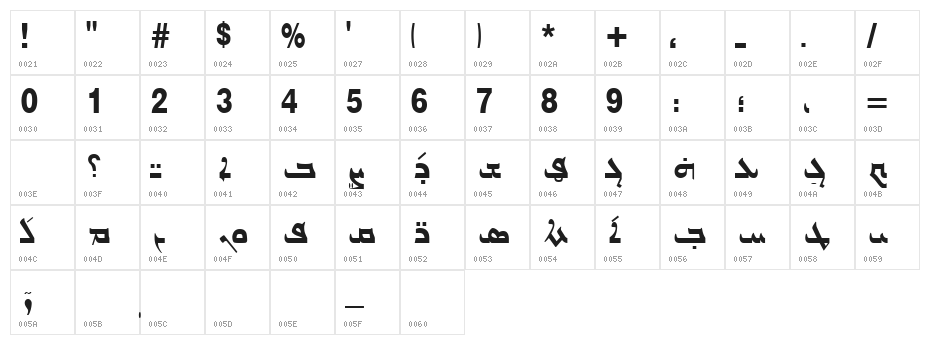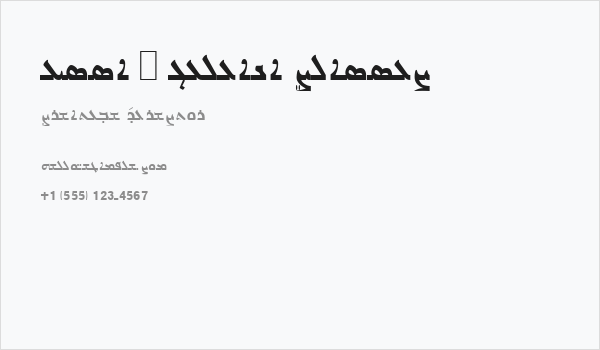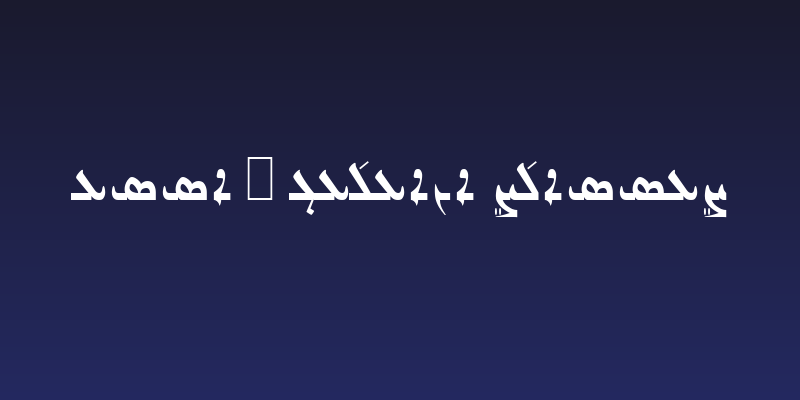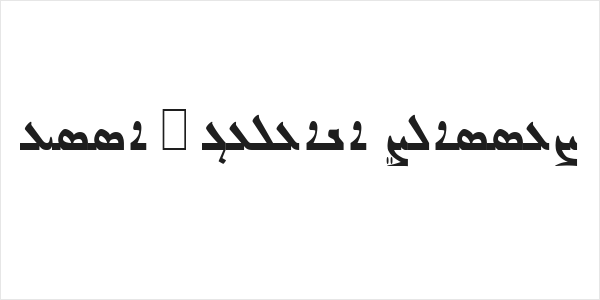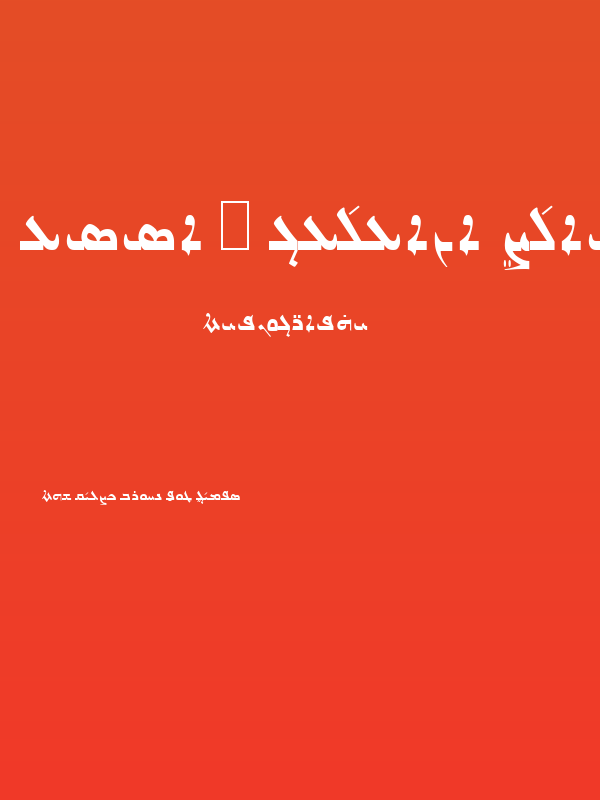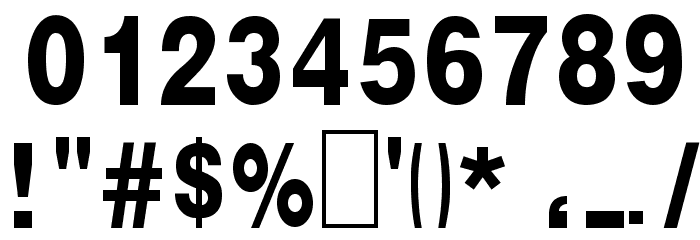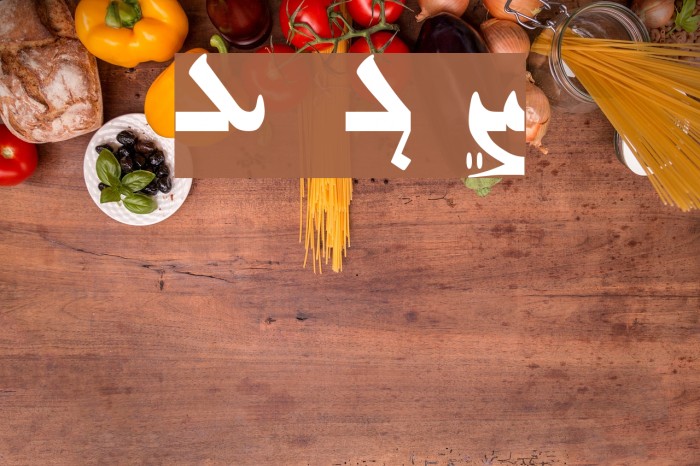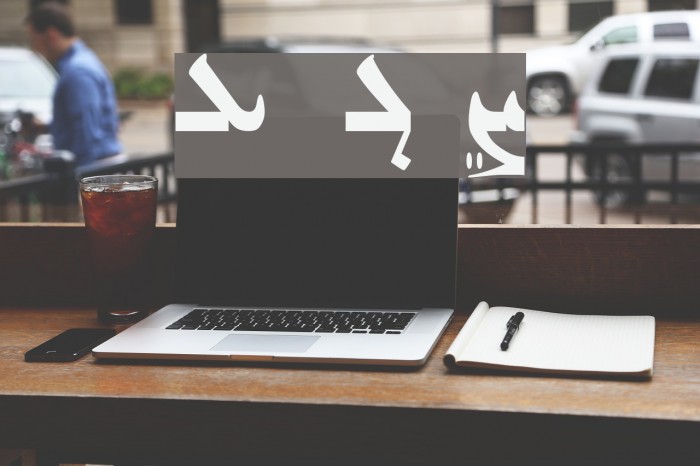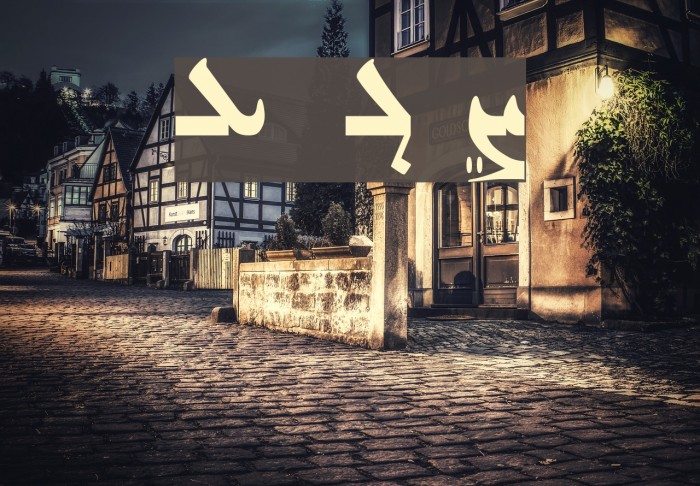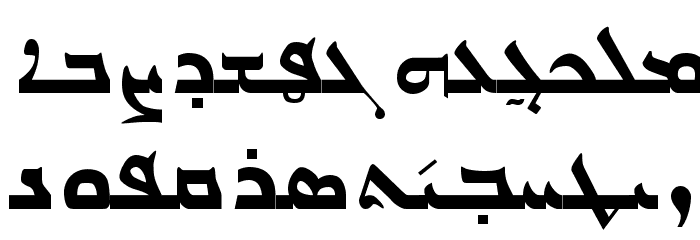
Issa & Giliana Classic Font
This font features a bold and striking design with a strong emphasis on geometric shapes and sharp angles. The characters are well-defined, with a consistent stroke width that gives it a uniform appearance. The uppercase letters are particularly prominent, showcasing a sense of authority and presence. The numerals are clear and easy to read, making them suitable for various applications. Special characters are included, maintaining the font's cohesive style. Overall, this typeface exudes a modern and assertive aesthetic, ideal for making a bold statement.
| Proposed Projects | Ideal for branding, headlines, posters, and any project requiring a strong visual impact. |